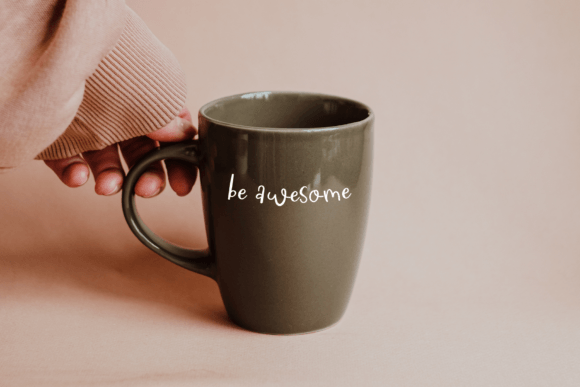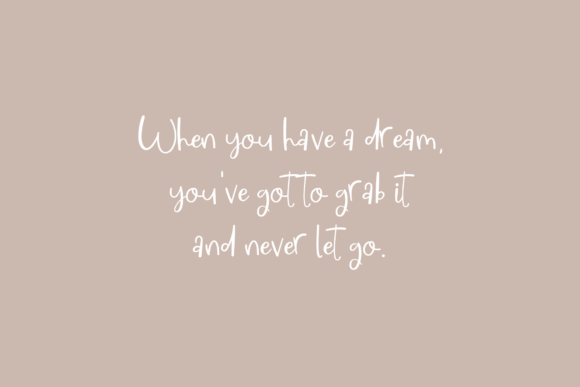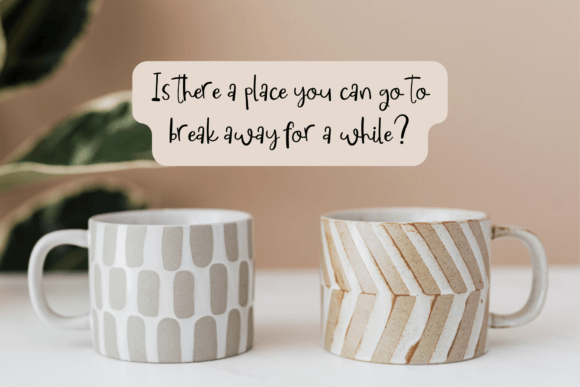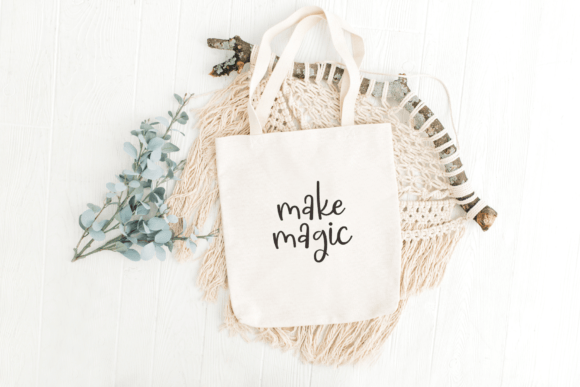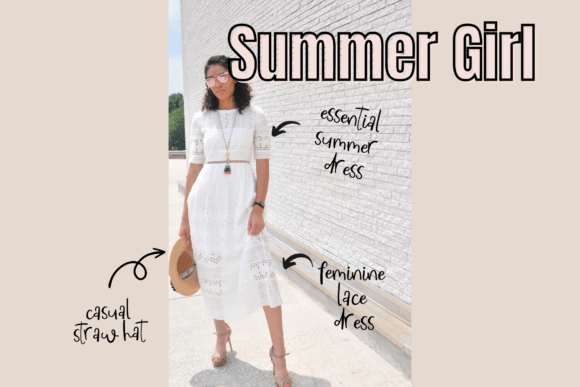
Introduction to Pinglsy Font
Have you ever stared at a blank canvas, waiting for inspiration to strike, only to have a burst of creativity hit you when you’re least expecting it? That’s exactly what happened to me the other day when I stumbled upon the adorable Pinglsy Font. Its playful curves and delightful details had me hooked from the very start.
As designers, we’re always on the lookout for that perfect design resource to bring our creative projects to life. And trust me, the Pinglsy Font is a game-changer. Not only is it a high-quality font that’s perfect for adding a touch of whimsy to our designs, but it’s also incredibly versatile – from greeting cards and invitations to social media graphics and branding materials, this font is a must-have in every designer’s toolkit.
Key Features of Pinglsy Font
- High-quality design for creative projects: The Pinglsy Font is designed to provide a unique and stylish look for various creative projects.
- Transparent background: The font has a transparent background, allowing you to easily combine it with other design elements and backgrounds.
- High-resolution design: The font is designed at a high resolution, ensuring that it looks crisp and clear even at large sizes.
- Perfect for digital and print projects: The Pinglsy Font is suitable for both digital and print projects, making it a versatile design resource.
Honest Review: Pinglsy Font
As a designer, I’ve had the pleasure of working with numerous fonts, and I’m excited to share my thoughts on the Pinglsy Font. This free download has been a game-changer for my creative projects.
- Unique aesthetic: The Pinglsy Font has a distinctive, playful style that’s perfect for adding a touch of whimsy to your designs.
- High-quality glyphs: The font’s high-quality glyphs ensure that your text will always look crisp and clear, even at larger font sizes.
- Transparent background: The font’s transparent background makes it easy to combine with other design elements and create visually appealing compositions.
- Limited language support: The Pinglsy Font only supports a limited number of languages, which may be a drawback for designers working on international projects.
- Not ideal for body text: While the font is perfect for headings and titles, it may not be the best choice for body text due to its playful, attention-grabbing style.
Overall, I’m impressed with the Pinglsy Font’s unique aesthetic and high-quality glyphs. While it may have some limitations, it’s a valuable addition to any designer’s toolkit. If you’re looking for a free design resource that’s perfect for creative projects, I highly recommend giving the Pinglsy Font a try.
Tips for Getting the Most Out of Pinglsy Font
To get the most out of the Pinglsy Font, experiment with different font sizes, colors, and arrangements. Combine the font with other design elements to create visually striking designs.
Common Use Cases for Pinglsy Font
The Pinglsy Font is ideal for use in creative projects, such as graphic design, digital art, and typography. Its unique design makes it perfect for creating eye-catching graphics and designs.
Alternatives to Pinglsy Font
The Great Vibes Font is a beautiful, elegant script font that is perfect for creative projects requiring a touch of sophistication. It’s ideal for use in wedding invitations, branding materials, or any other design where a high-quality, handwritten font is needed.
Compared to Pinglsy Font, Great Vibes Font has a more refined and classic look, making it suitable for a wider range of design applications.
The Lato Font is a clean and modern sans-serif font that’s perfect for designs requiring a high level of readability. It’s ideal for use in digital products, websites, and mobile apps where a clear and concise font is necessary.